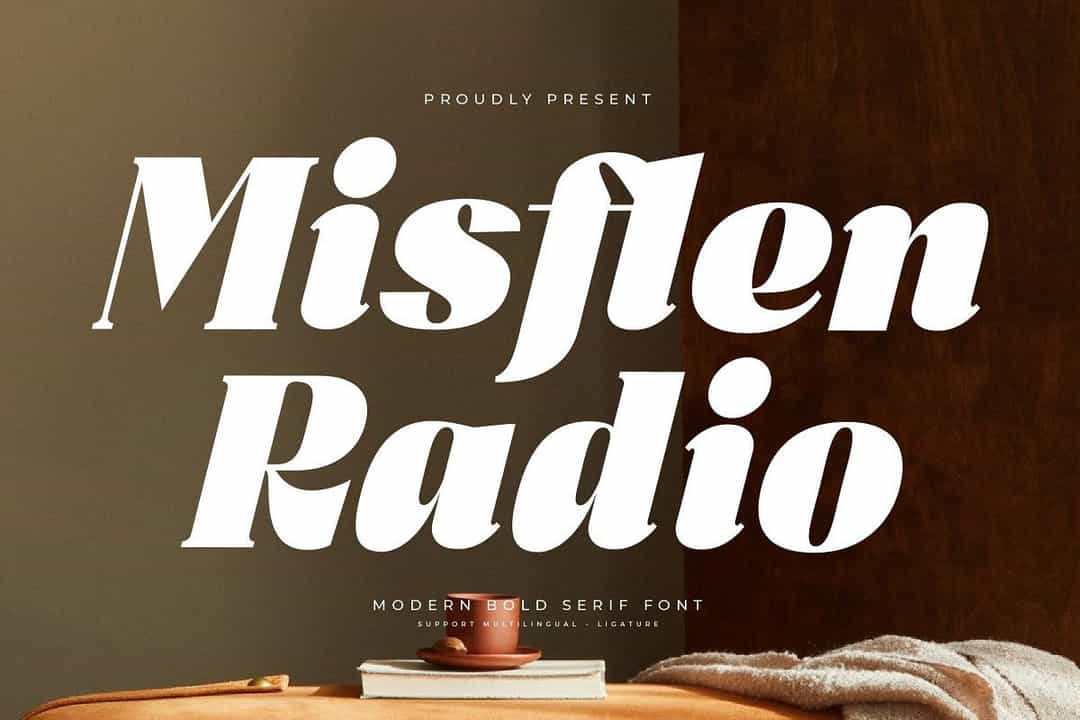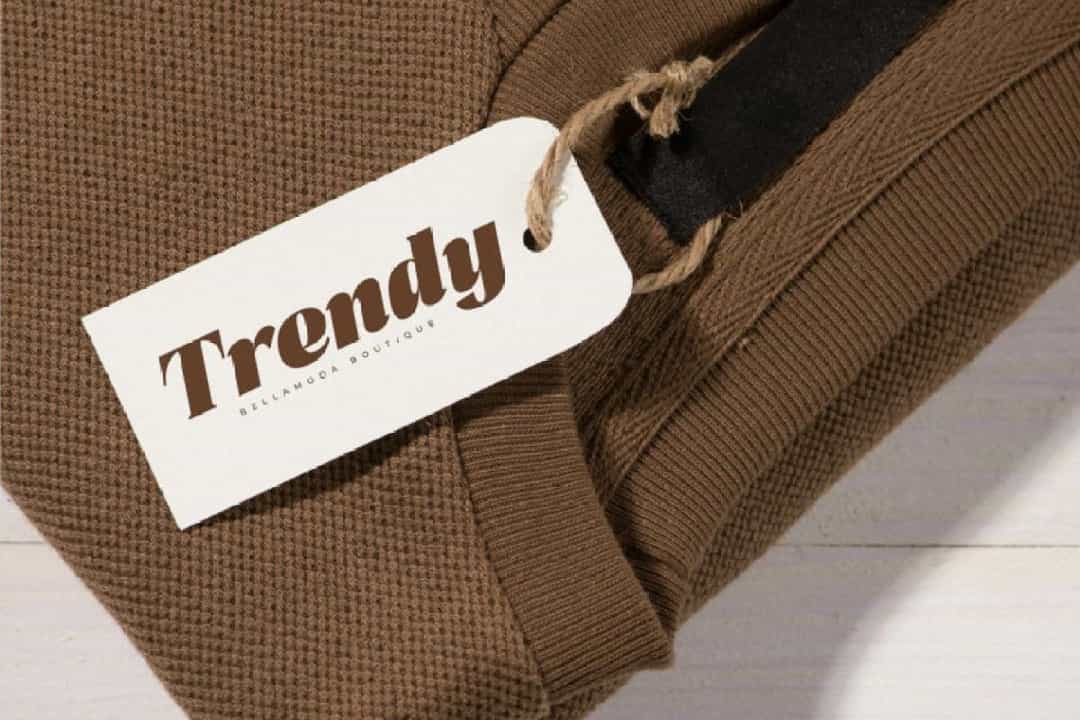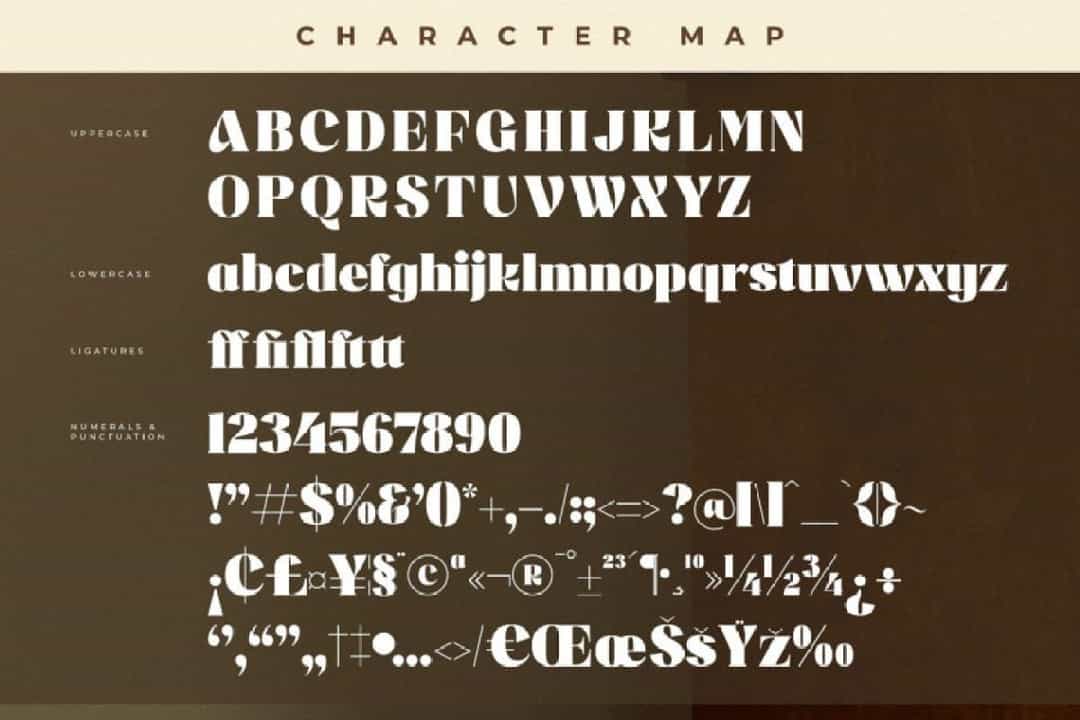
Misflen Radio is an elegant yet modern serif font, distinguished by its strong presence. Designed with clean lines and sharp corners that exude confidence and elegance, Misflen Radio makes an impactful statement about branding, headlines or editorial layouts – perfect for branding campaigns, headlines or layouts with bold styles such as Misflen Radio’s.